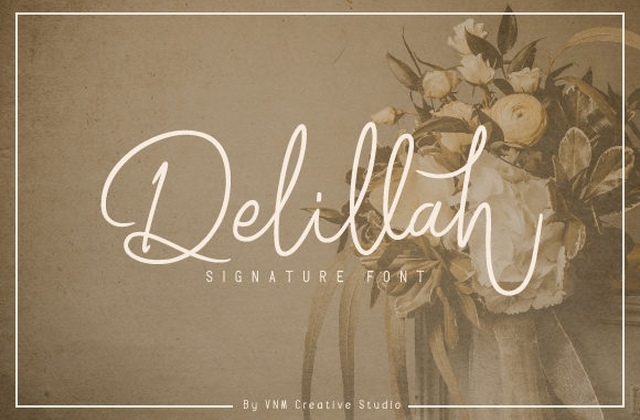
Delillah Font
Delillah Font is perfect for branding, wedding invitations, greeting cards, social media graphics, and lifestyle blog designs. Its elegant and flowing style adds a sophisticated, artistic touch to any project.
What makes Delillah Font exciting is its smooth, graceful letterforms that combine readability with a stylish, decorative flair. The font’s refined curves and balanced proportions give designs a polished and professional look.
The Delillah Font family includes Regular, Bold, Italic, and Swash variations, providing designers flexibility to craft creative and visually appealing typographic compositions.